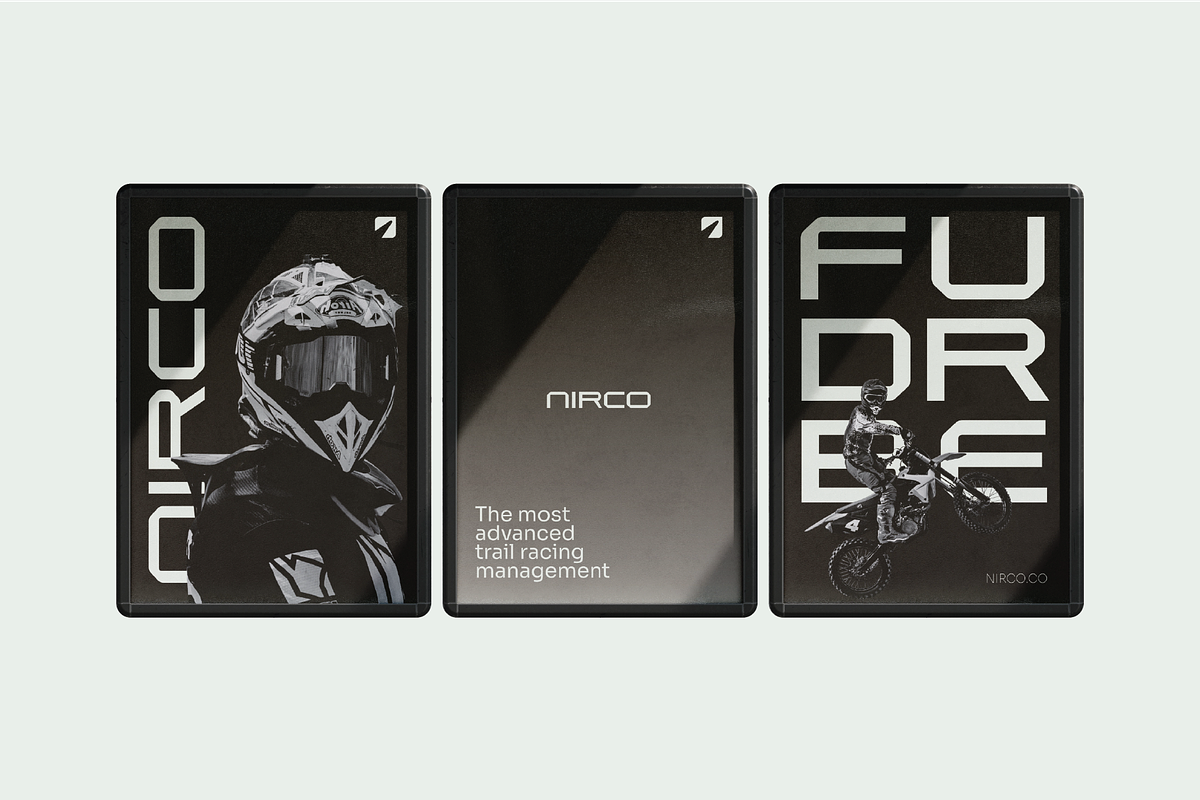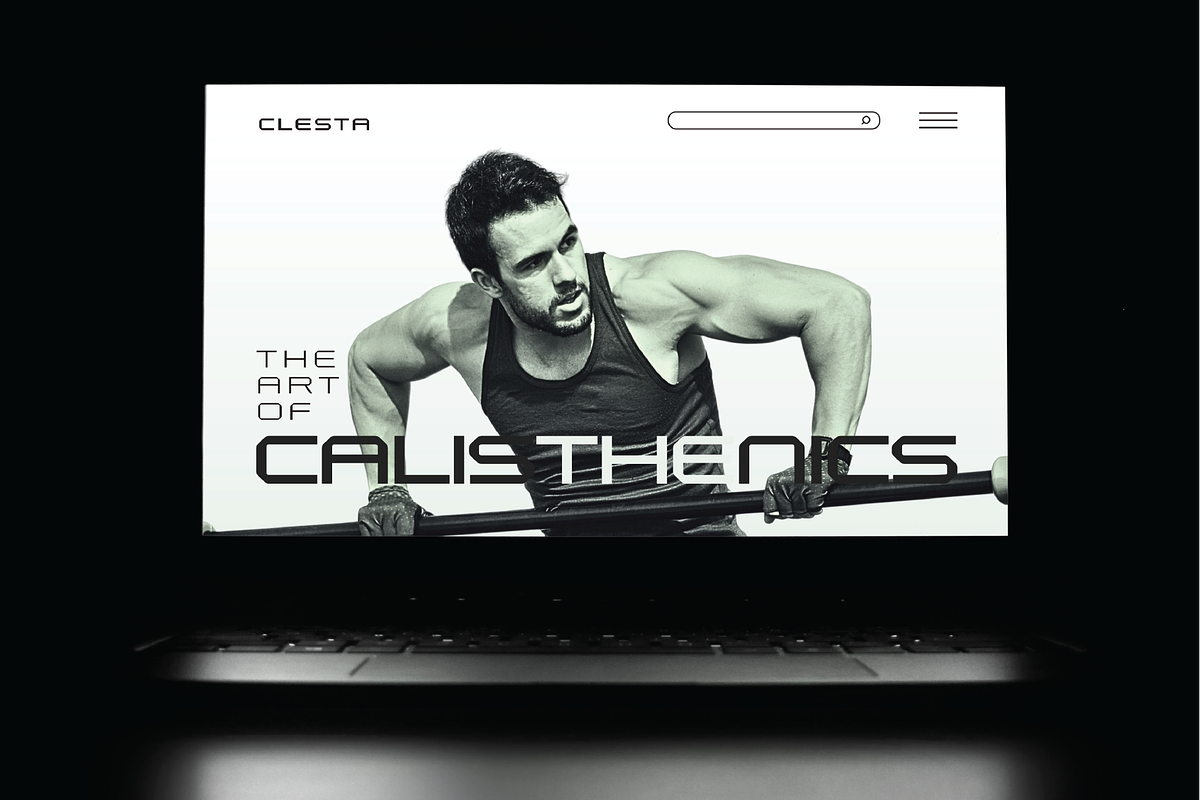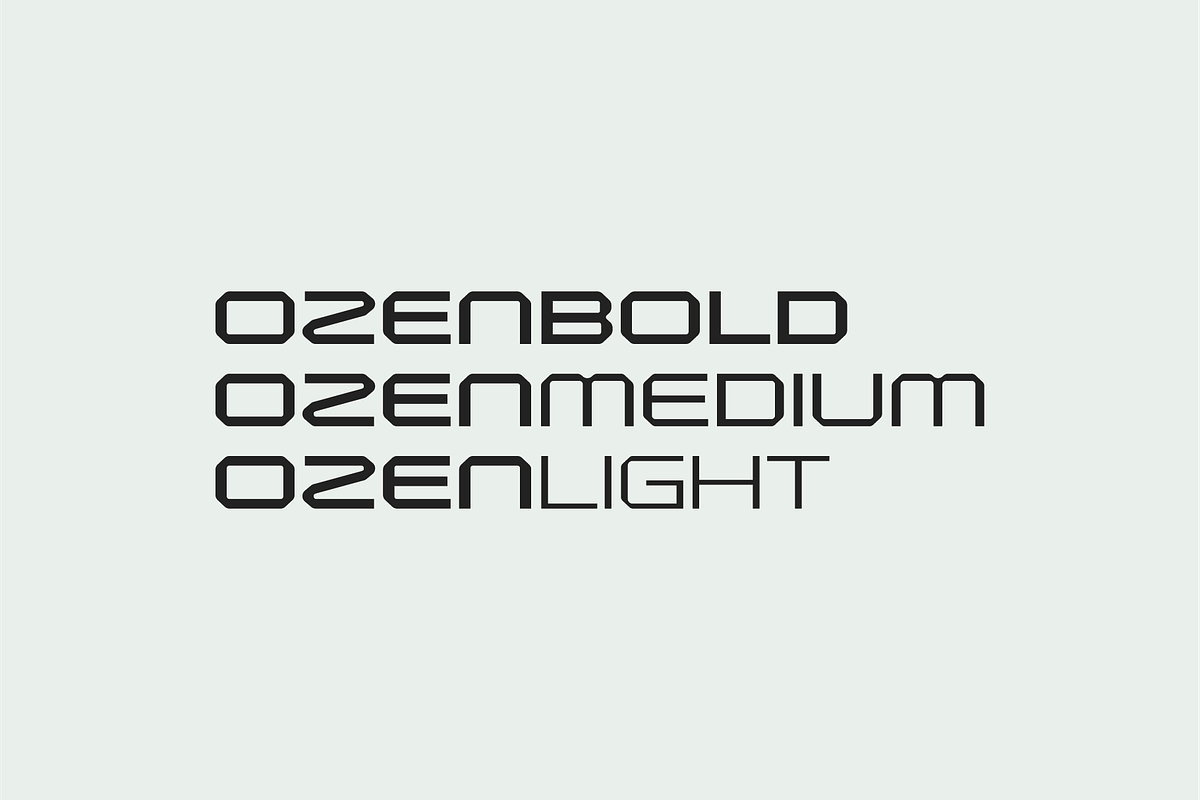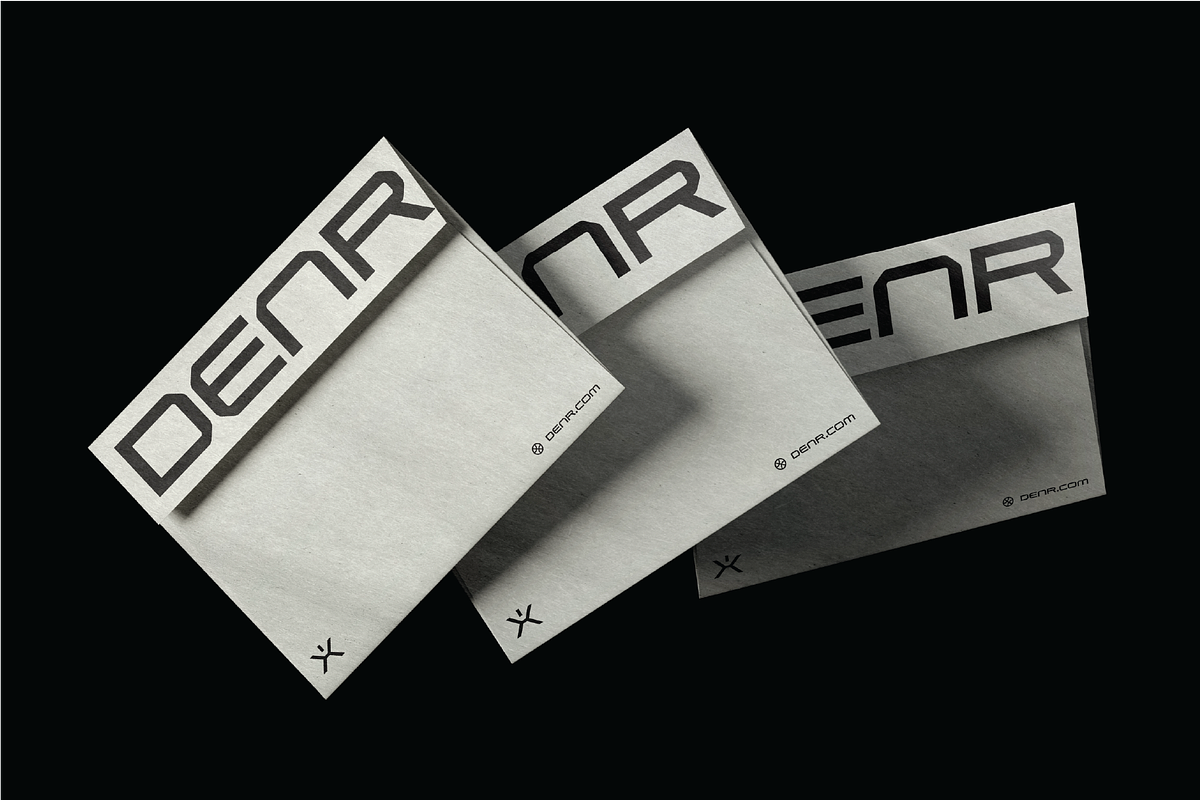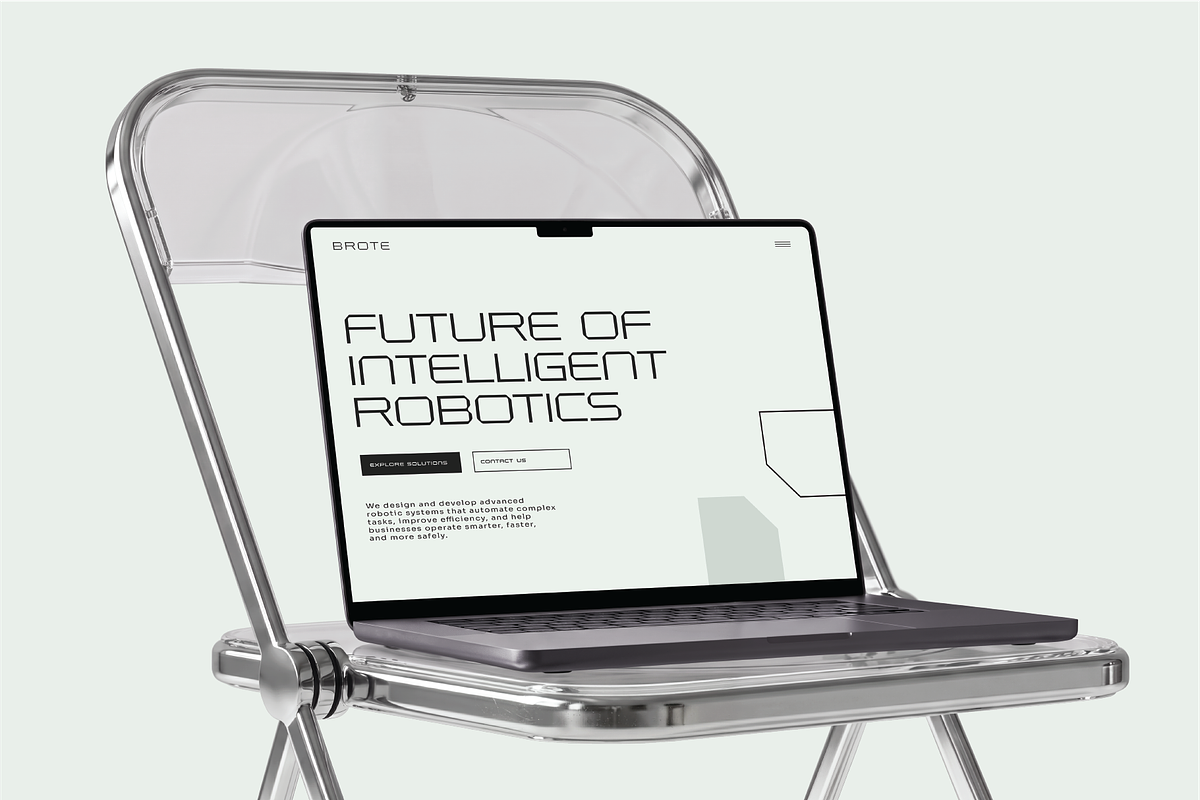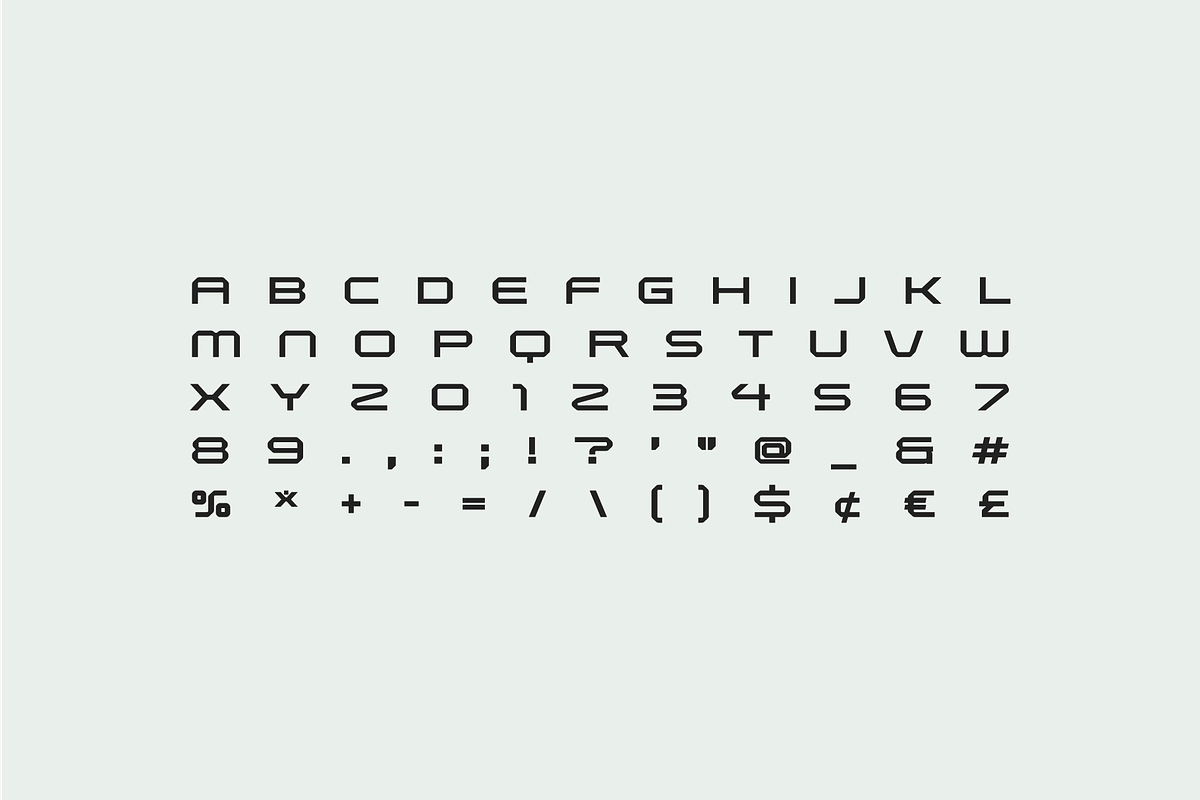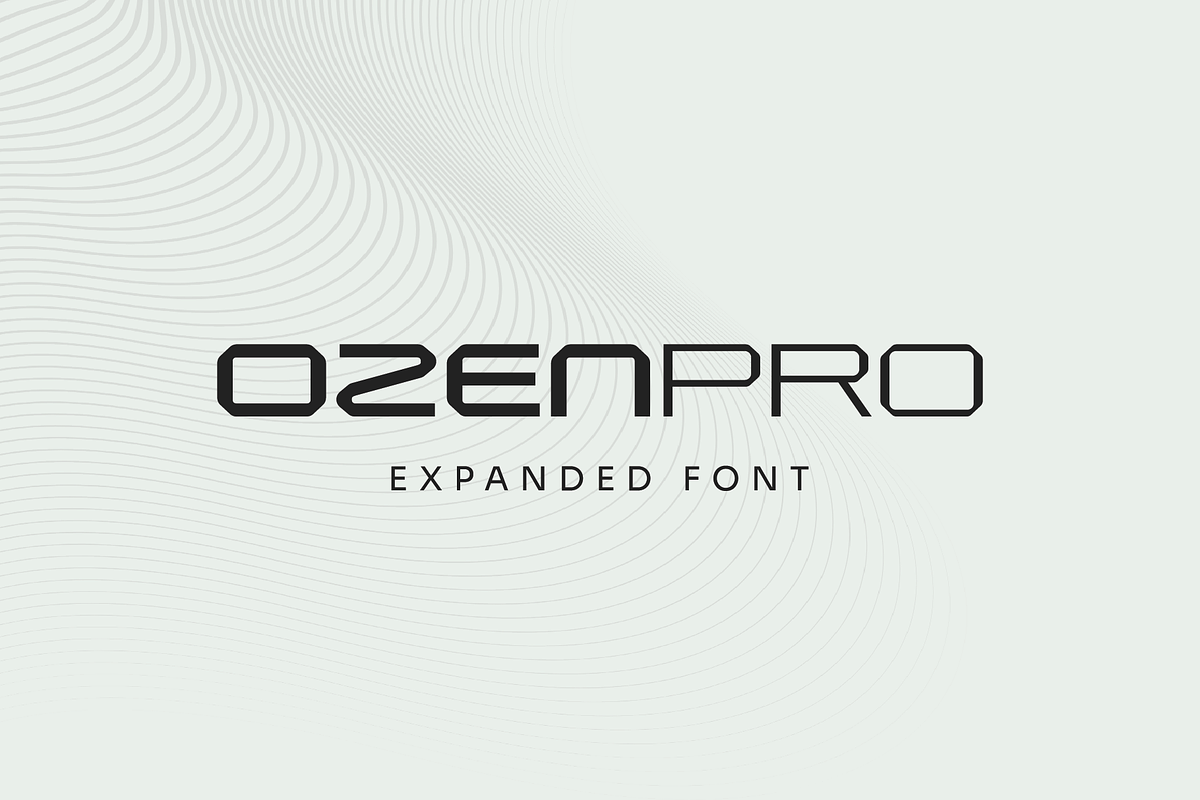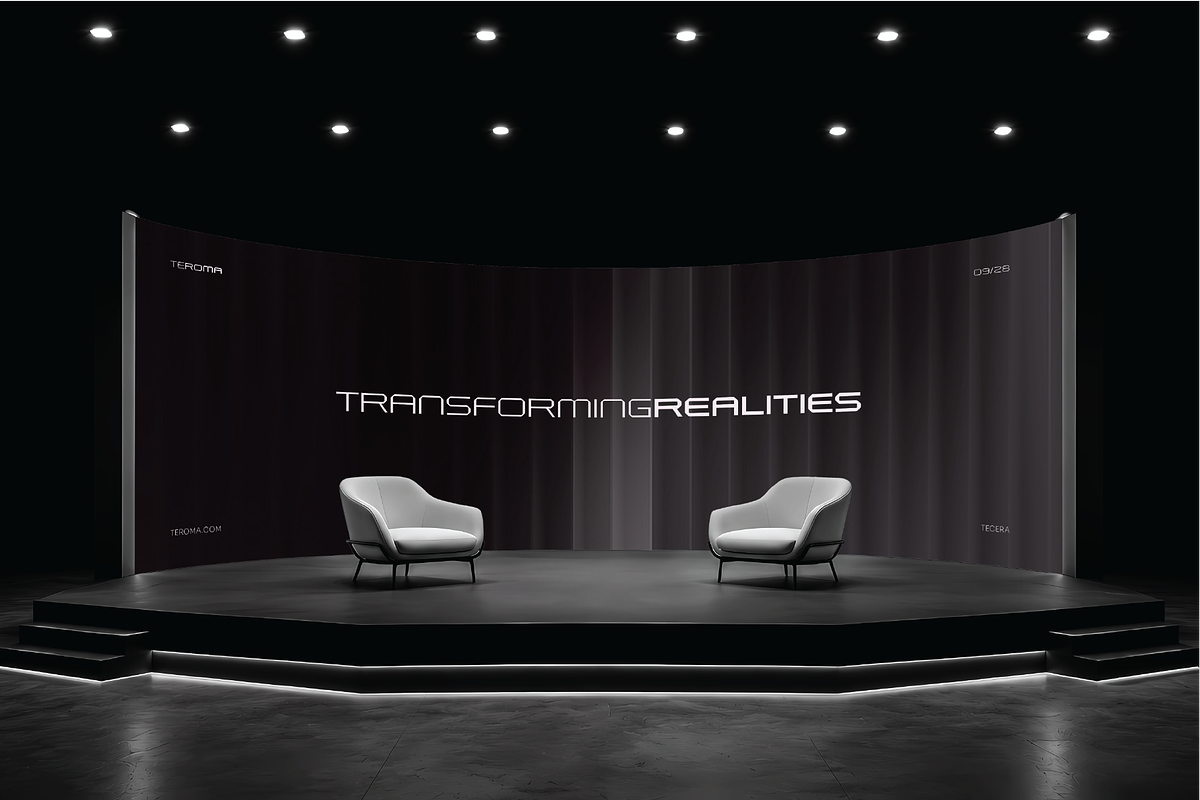
OzenPro-abstract futuristic font
OzenPro is a sleek, abstract, futuristic display font designed for bold visual identities and modern digital experiences. Inspired by sci-fi aesthetics, advanced technology, robotics, and cyberpunk design, OzenPro combines geometric letterforms with clean, rounded edges to create a distinctive typeface that feels both innovative and timeless. Its extended proportions and minimal construction make it perfect for creating striking headlines, logos, branding, posters, UI designs, gaming graphics, and technology-focused projects.
Featuring Light, Medium, and Bold weights, OzenPro offers the flexibility to build cohesive visual systems while maintaining its unique futuristic character. Whether you're designing for AI startups, esports brands, automotive concepts, fashion editorials, music covers, or experimental creative projects, this font delivers a strong, high-tech aesthetic that instantly captures attention.